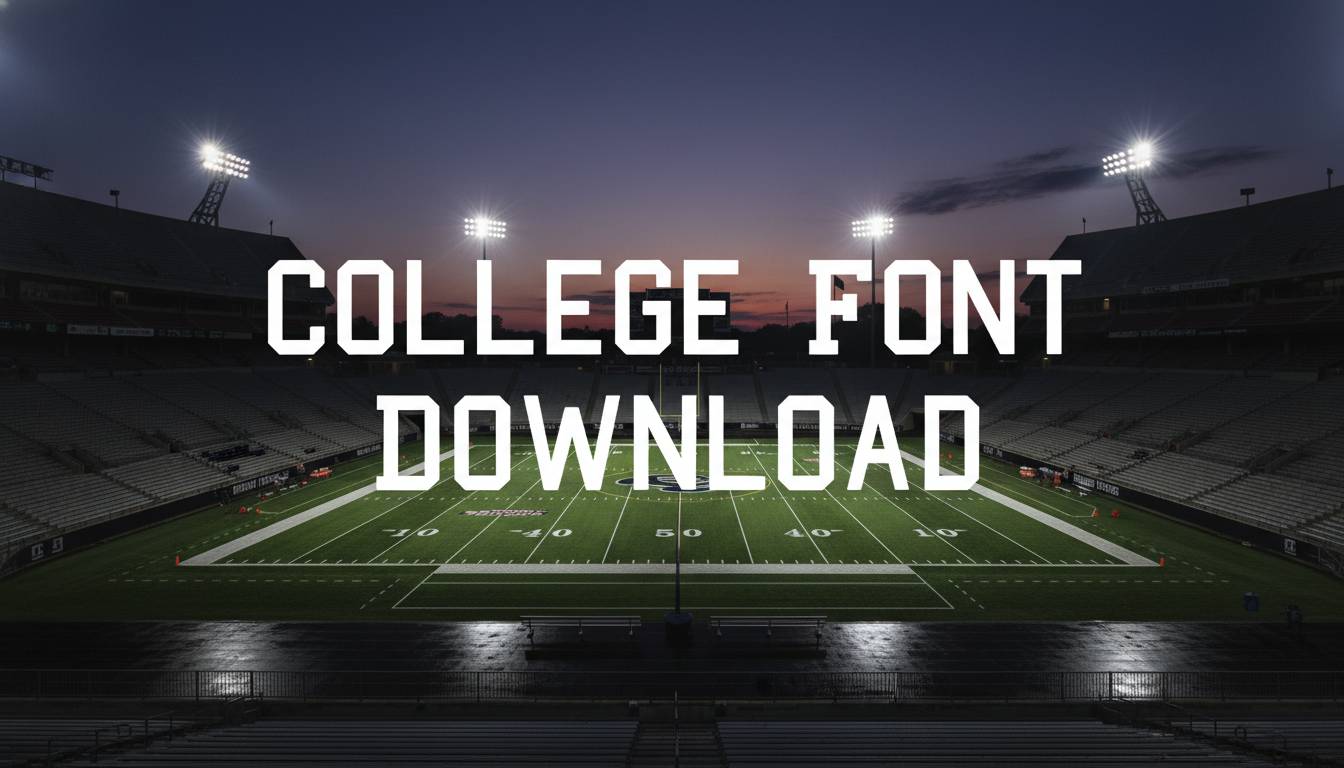
College Font
College
College is an old school font from our Fancy collection that works well for vintage signs, barber shop logos and retro labels.
Every letter from A to Z is here in both cases, and so are the digits 0–9. Punctuation such as !, ?, # and $ works too. It has no accented letters such as é or ñ, so it works best for English text.